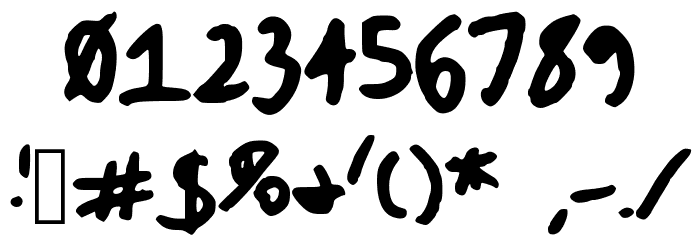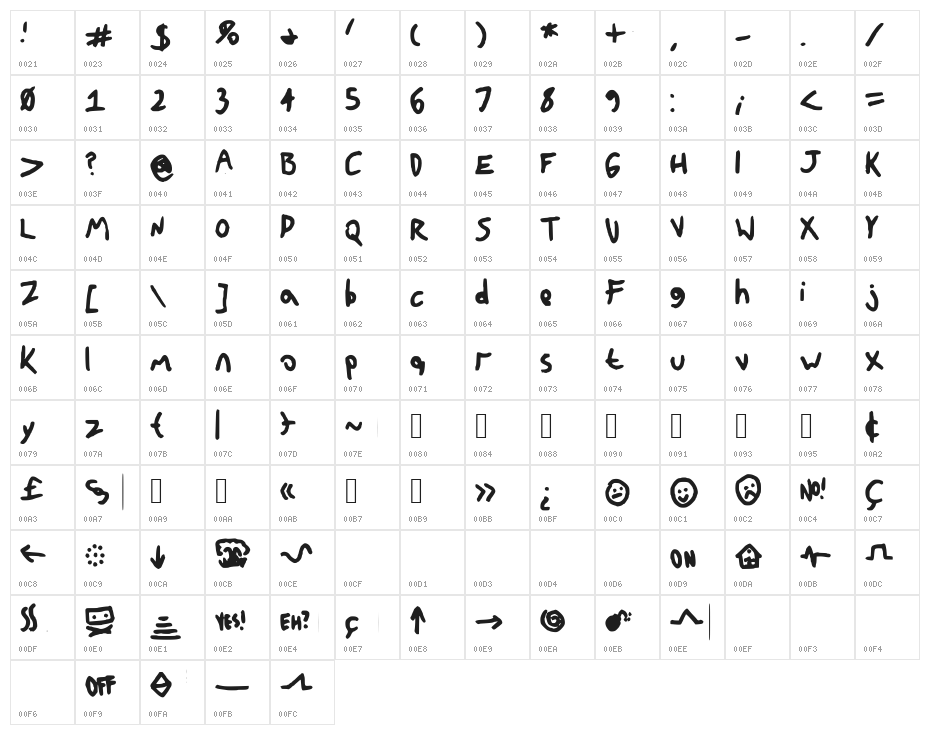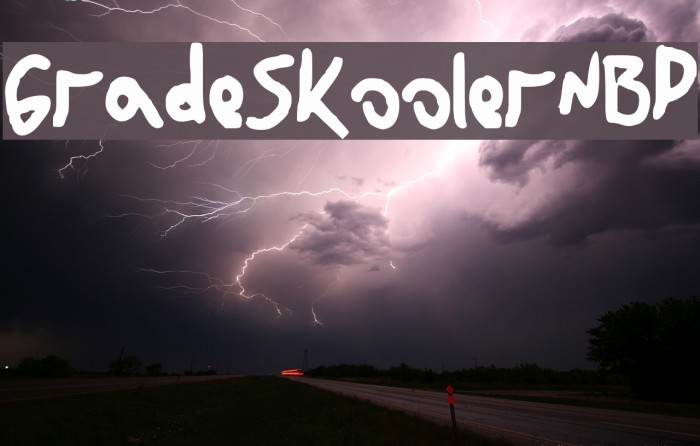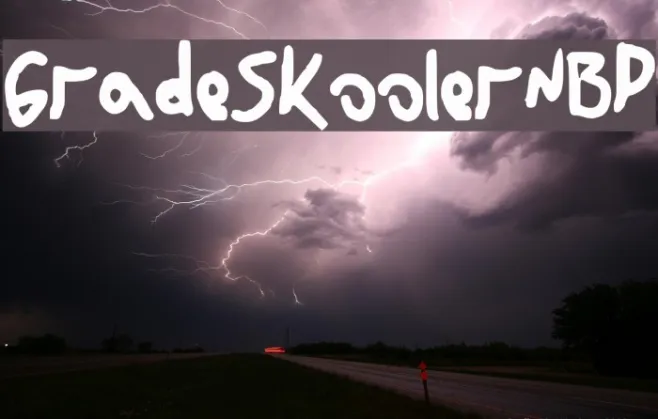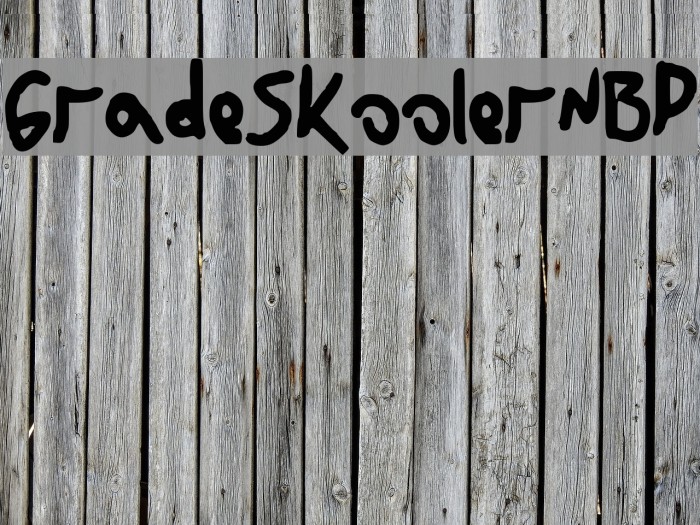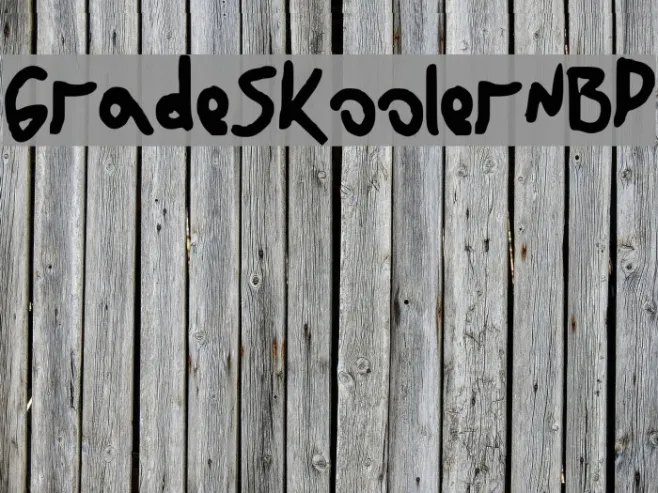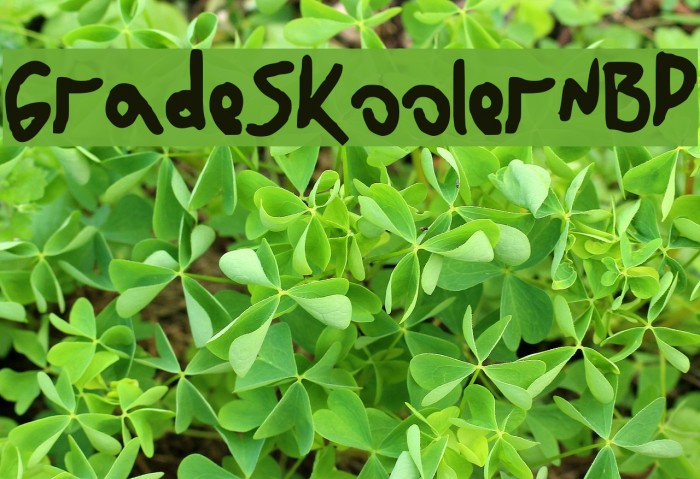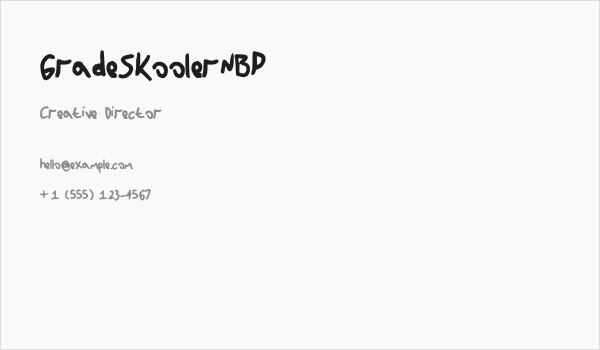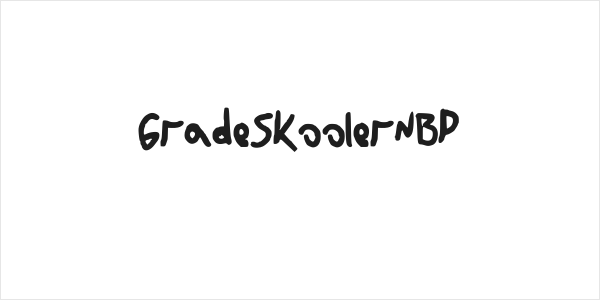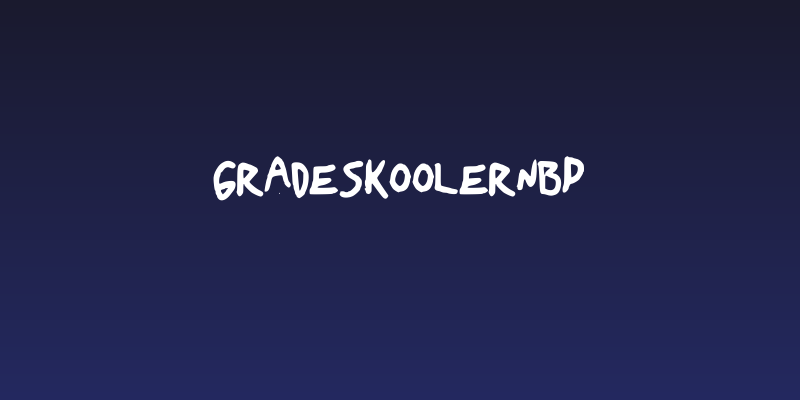
GradeSkoolerNBP Font
GradeSkoolerNBP Description
This playful and bold font features a handwritten style that mimics the look of a child's writing. The characters are uneven and slightly irregular, giving it a casual and informal appearance. The strokes are thick and consistent, providing a strong presence on the page. The font includes a full set of uppercase and lowercase letters, numbers, and a variety of special characters. Its whimsical nature makes it ideal for projects that require a fun and approachable feel.
| Proposed Projects | Ideal for children's books, educational materials, playful branding, and casual invitations. |